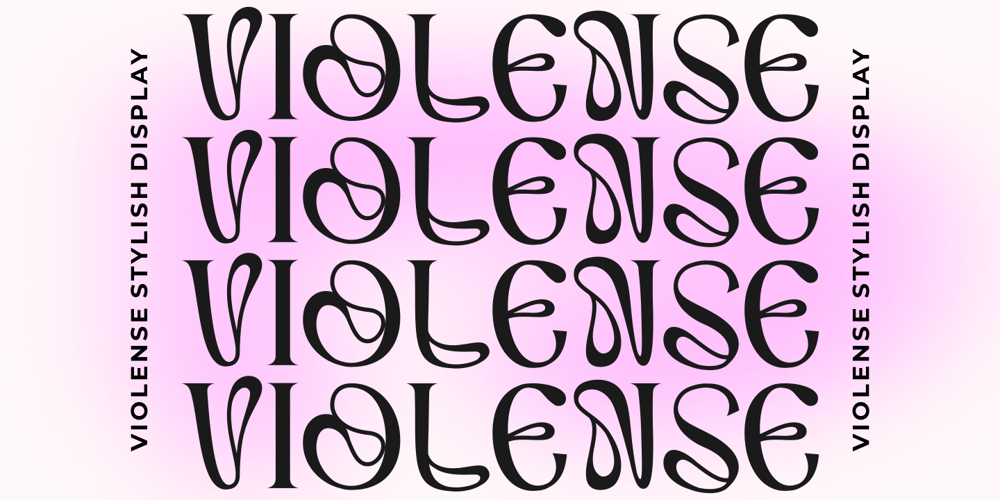
Violense Font Family was designed by Putra Novembria Candra Kusuma and published by Putracetol. Violense contains 1 styles and family package options. Introducing Violense – a stylish display font that draws inspiration from unique typography and lettering found in elegant alphabets from stylish displays, combined with an elegant typography style. This font features modern ligatures that allow you to create stunning lettering for your artwork. With its OpenType features, including alternates and end swashes, you have ample options to customize your lettering and create unique designs.Violense is perfect for various design purposes, including logotypes, headings, covers, posters, logos, quotes, product packaging, headers, merchandise, social media, greeting cards, and more. Its versatile design makes it suitable for a wide range of projects, and it also supports multi-language characters, making it accessible for designers around the world.To access the alternate glyphs, you’ll need a program that supports OpenType features, such as Adobe Illustrator CS, Adobe Photoshop CC, Adobe InDesign, and Corel Draw. This allows you to take full advantage of the alternate characters and swashes to create custom compositions that suit your design needs.In your zip package, you’ll receive the Violense font files in otf, ttf, and woff formats, providing flexibility for different design projects. The font includes uppercase and lowercase letters, numerals, punctuation, and symbols, ensuring that you have all the essential elements for your designs.Violense also supports multilanguage characters, making it suitable for designing in different languages. Whether you’re creating designs in English, Spanish, French, or any other language, Violense has got you covered.In summary, Violense is a stylish display font that offers unique typography and modern ligatures for creating eye-catching designs. With its OpenType features and multilanguage support, Violense is a versatile font for various design purposes. Thank you for choosing Violense from our collection. Happy designing!